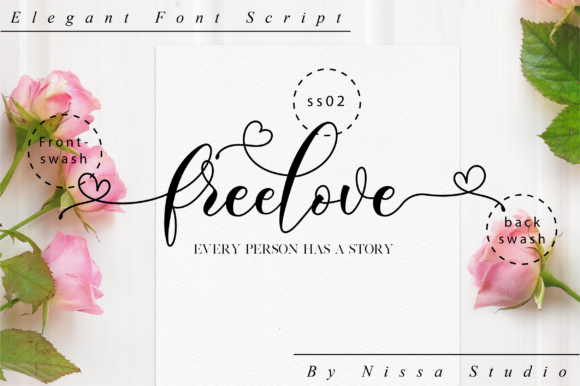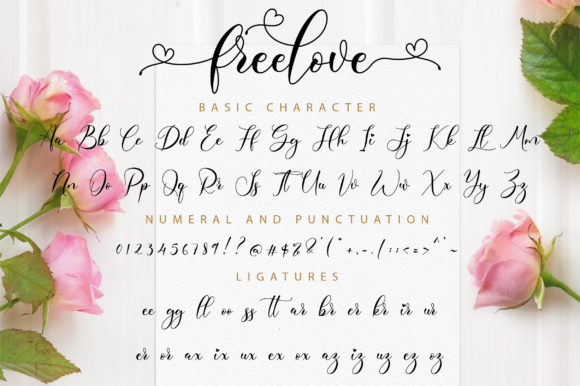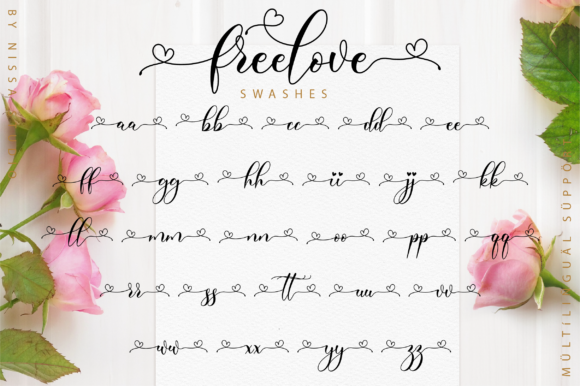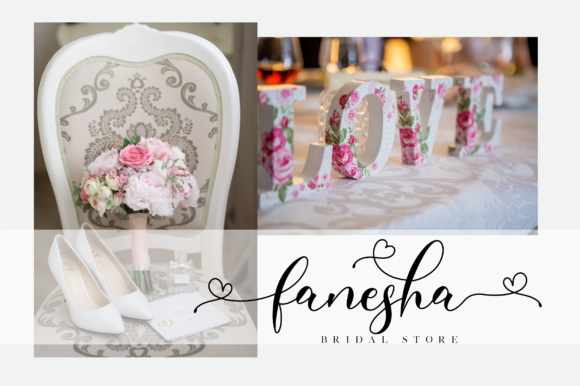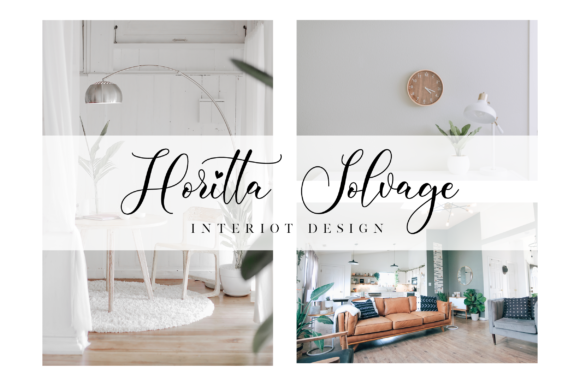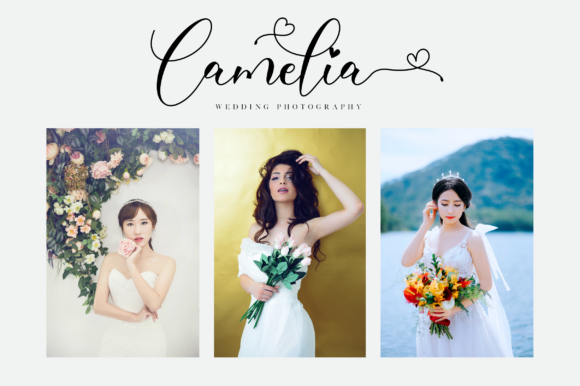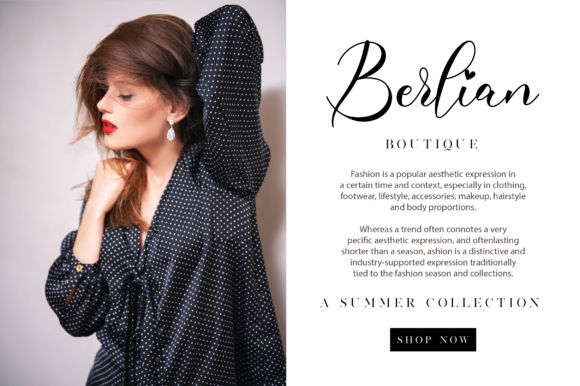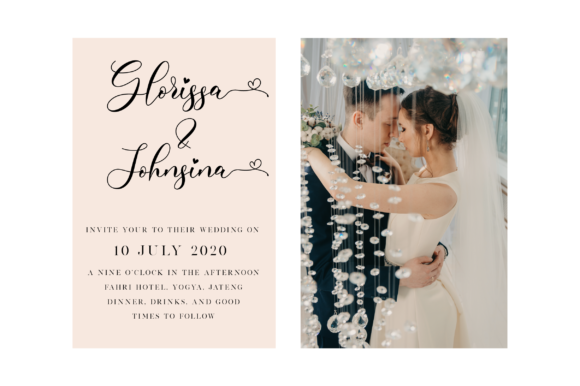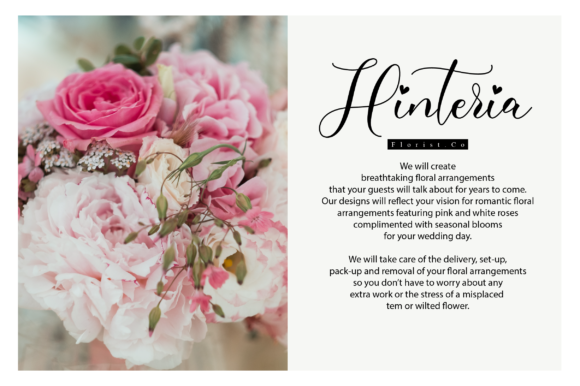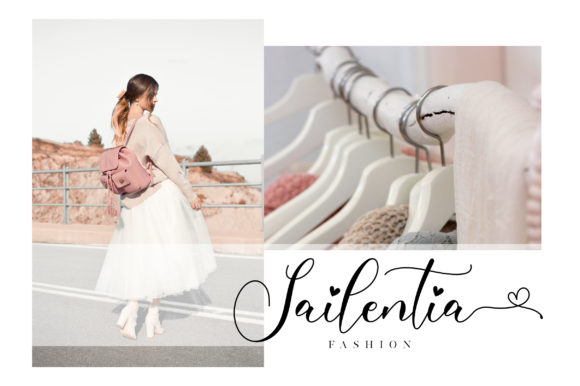
HomeScript FontsFreelove Font Script Fonts Freelove Font FacebookXPinterestWhatsApp Freelove Font Poster 2 Freelove Font Poster 3 Freelove Font Poster 4 Freelove Font Poster 5 Freelove Font Poster 6 Freelove Font Poster 7 Freelove Font Poster 8 Freelove Font Poster 9 Freelove Font Poster 10 Freelove Font Poster 11 Freelove Font Poster 12 About Freelove Font Freelove is a beautiful and charming font script that will add a unique flavor to your next craft design. DOWNLOAD NOW People also explored Charter Winter Font Jakartha Font Patricia Font Sweetyhearts Font Falisha Font Stay in Villa Font Pastry Font Weathered Sweater Font Beauty Orange Font 386 0 TagsFreelove Font Previous articleWattermellon FontNext articleCandy Clause Font LEAVE A REPLY Cancel reply Comment: Please enter your comment! Name:* Please enter your name here Email:* You have entered an incorrect email address! Please enter your email address here Website: Save my name, email, and website in this browser for the next time I comment. Personal Use Free William Personal Use Free Read more about this font Free Personal Use Free Read more about this font BD Beans Personal Use Free Read more about this font Hiters Personal Use Free Read more about this font BLOG Transform Your Website: Elevate Your Typography with 7 Best Web Font Generators Are you ready to transform your website's typography from ordinary to extraordinary? Great! Today, we're diving into the world of web font generators, which... Top 7 Google Fonts Alternatives for Faster and Privacy-Friendly Web Design (2025) Modern Sans-Serif Fonts That Brands Love in 2025 Top 10 Handwritten Fonts That Elevate Your Designs